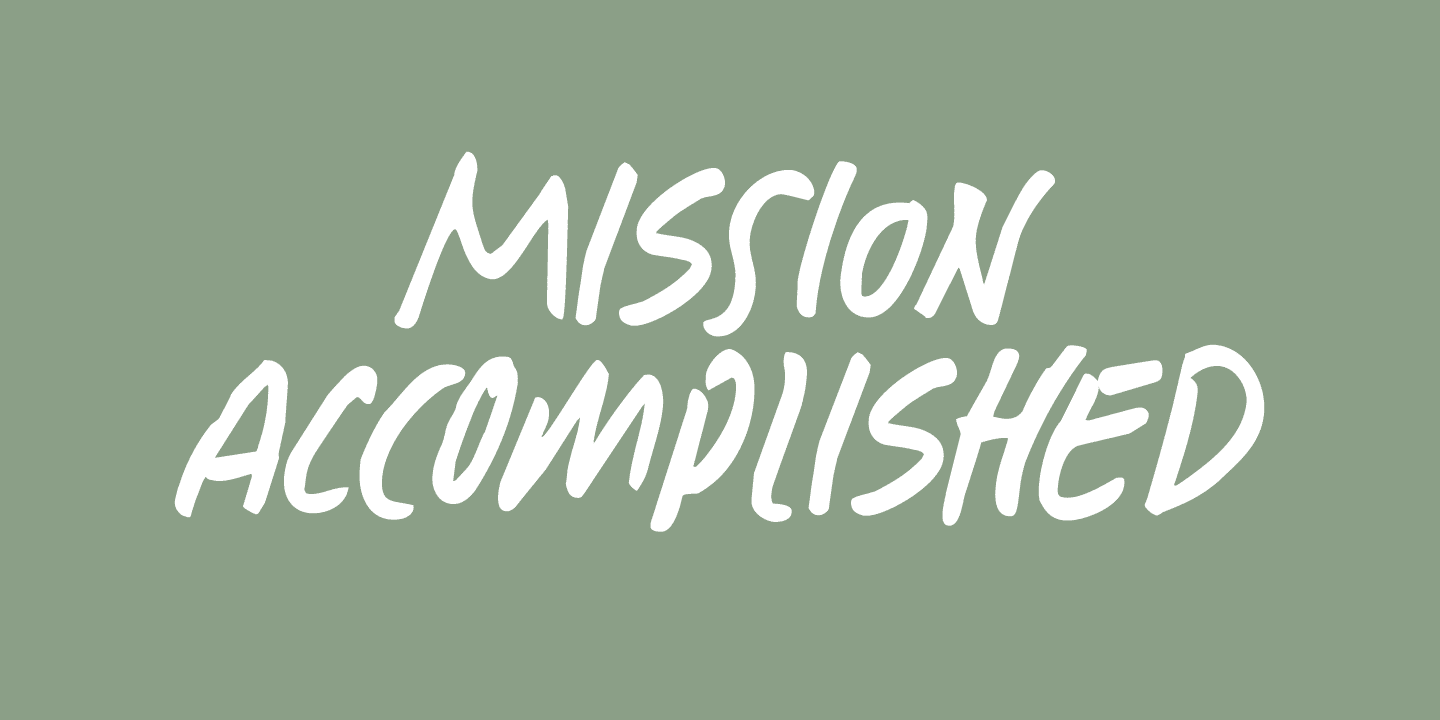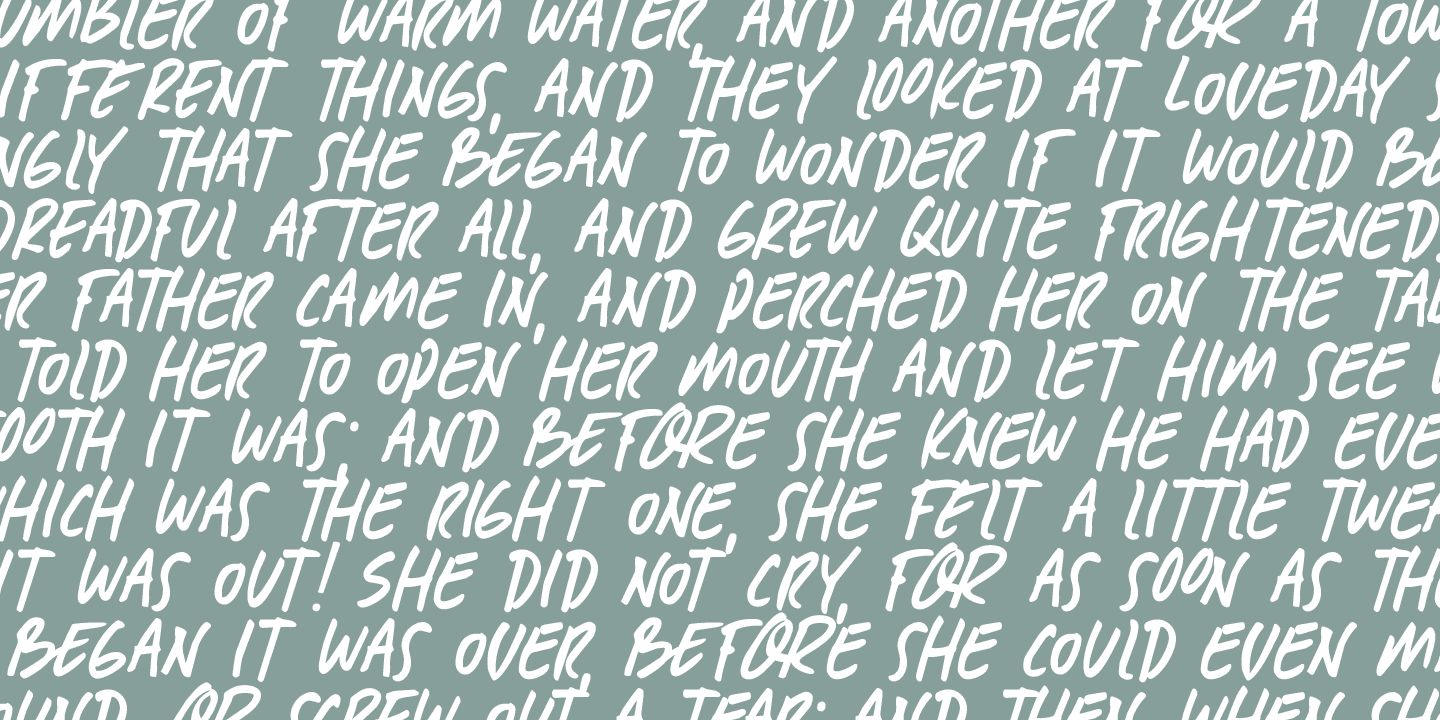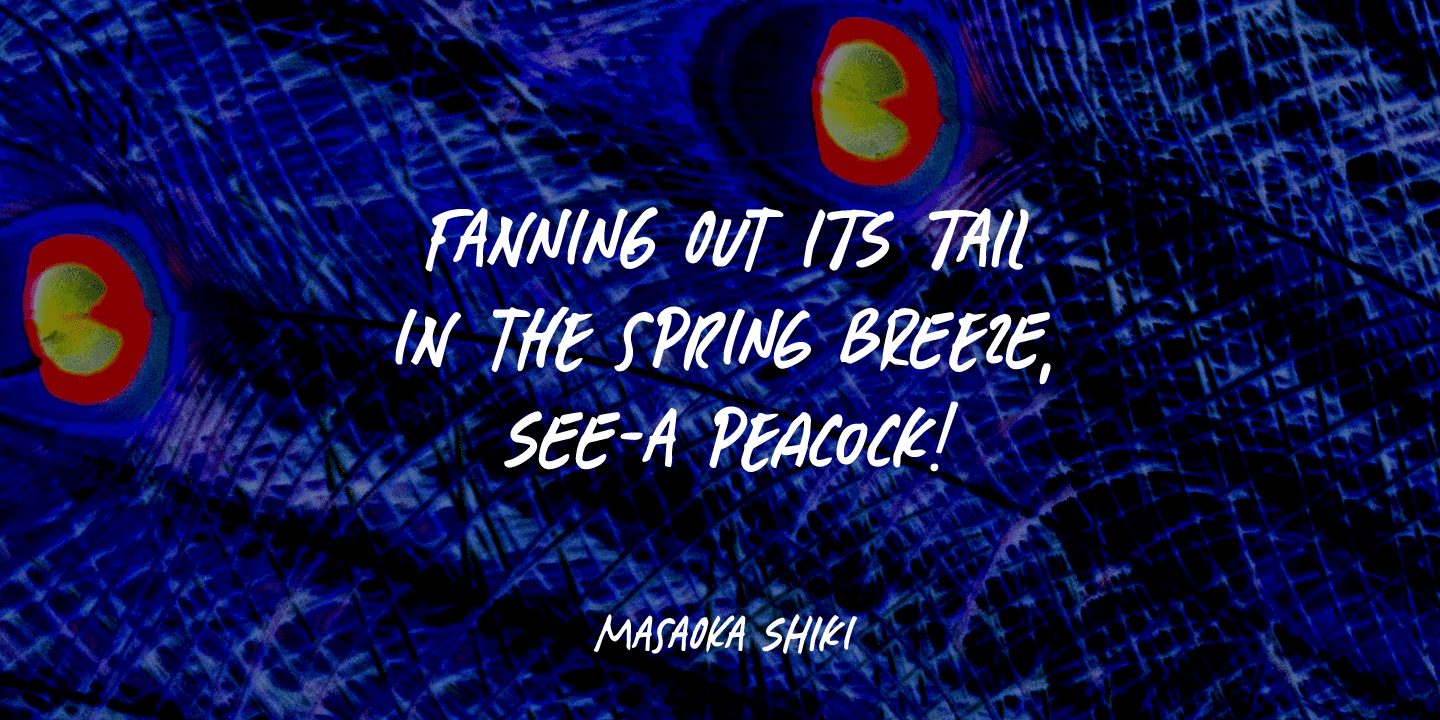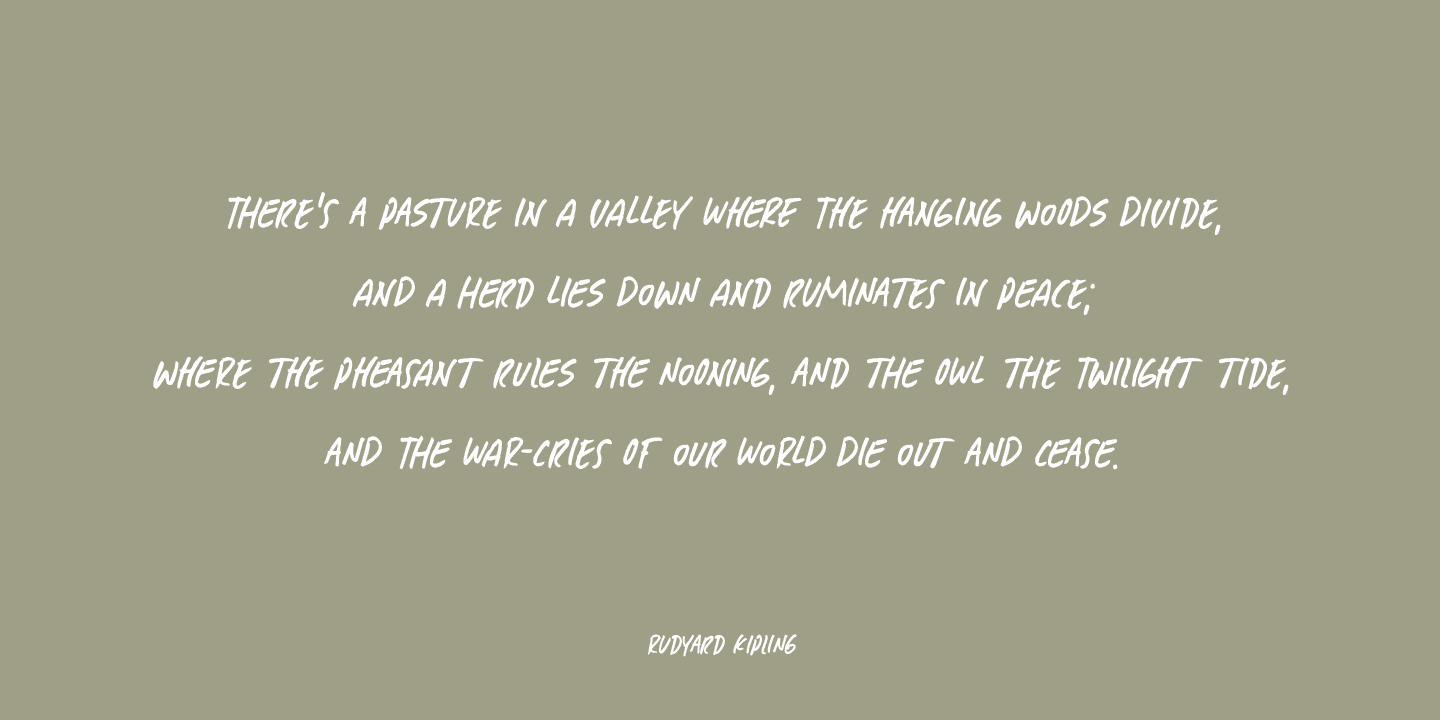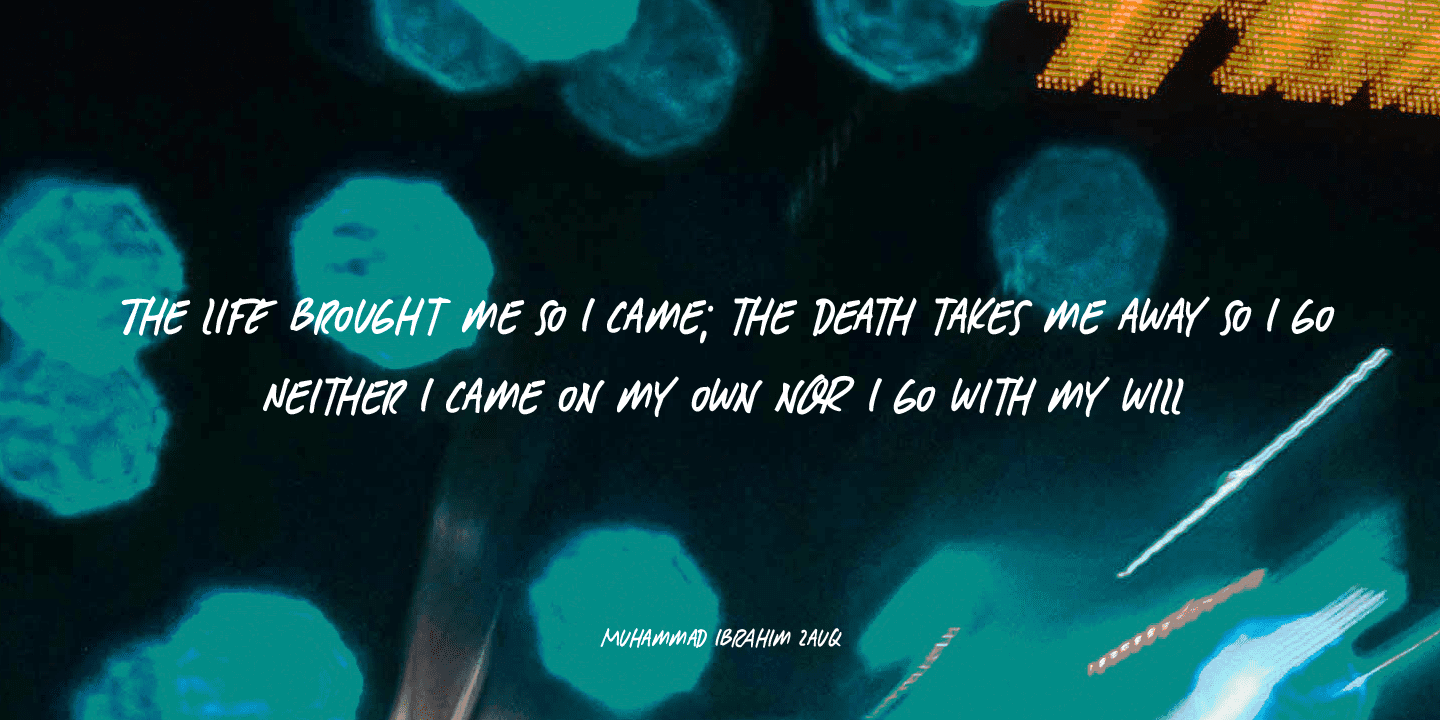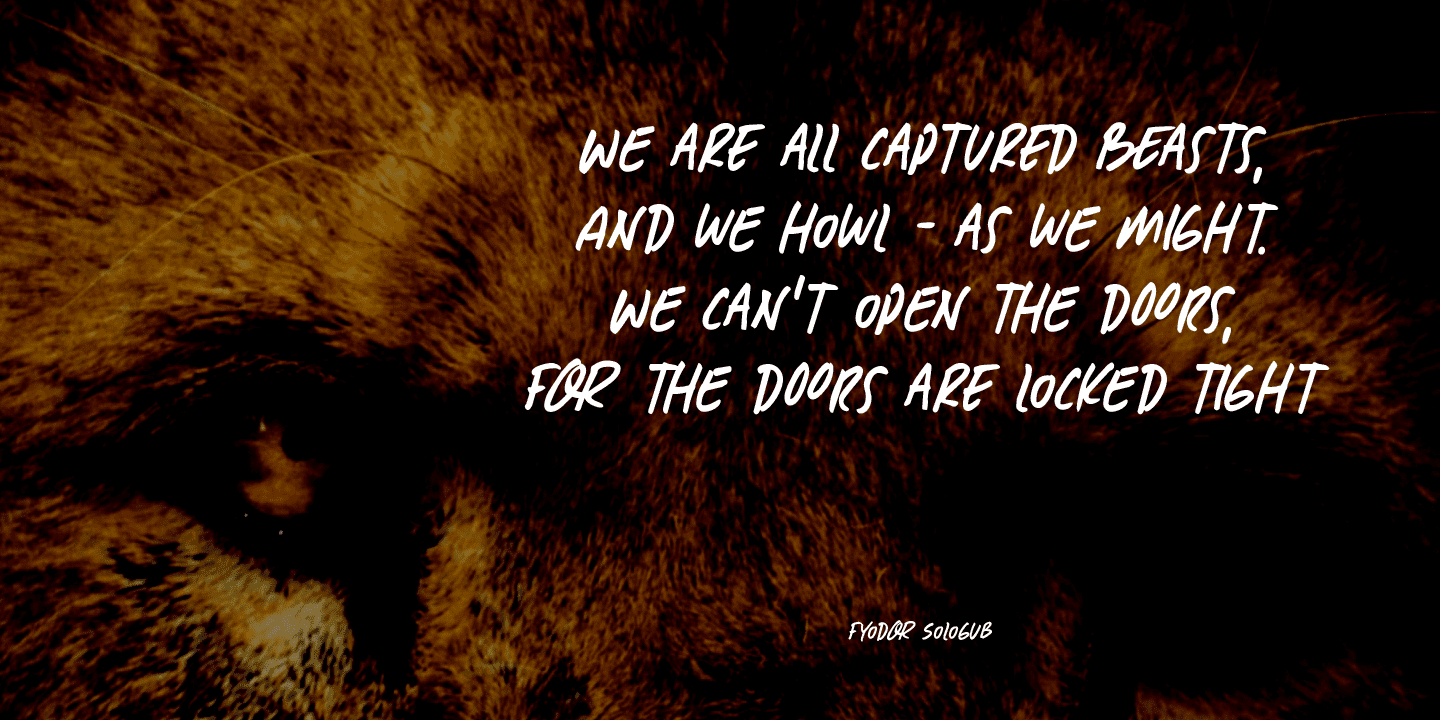
Mission Accomplished Family (2 fonts)
Mission Accomplished can be used virtually anywhere, but single origin coffee bean packaging and artisan marmalade labels come to mind.
Comes with a bunch of cute discretionary ligatures as well!